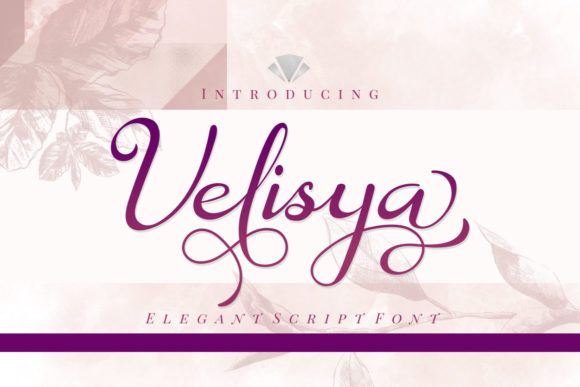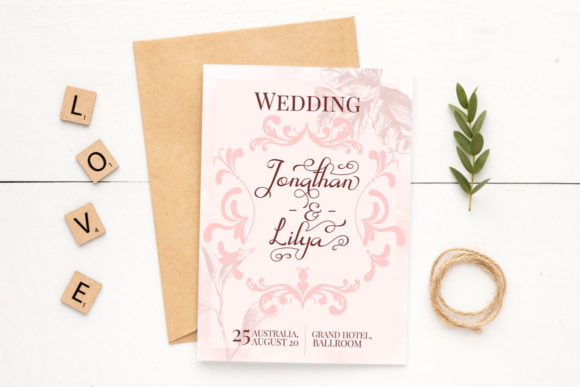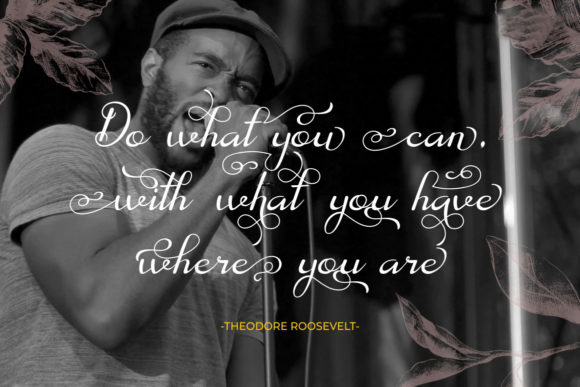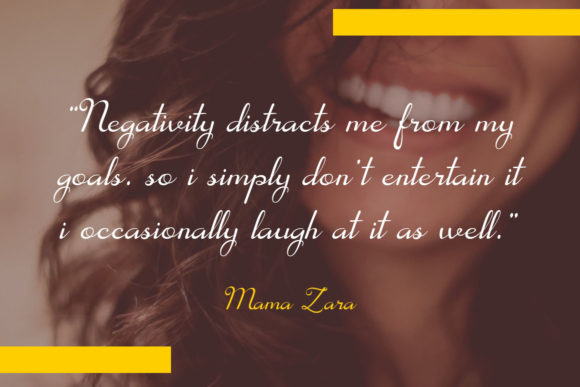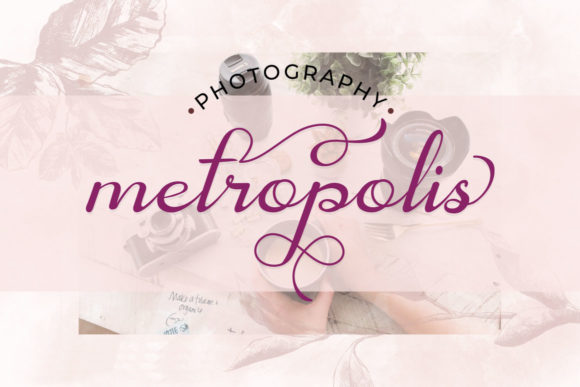
About Velisya Font
Velisya is an incredibly distinct, delicate and timeless handwritten font. It looks stunning on wedding invitations, thank you cards, quotes, greeting cards, logos, business cards and every other design which needs a handwritten touch. This font is PUA encoded which means you can access all of the glyphs and swashes with ease! It features a varying baseline, smooth lines, gorgeous glyphs and stunning alternates.